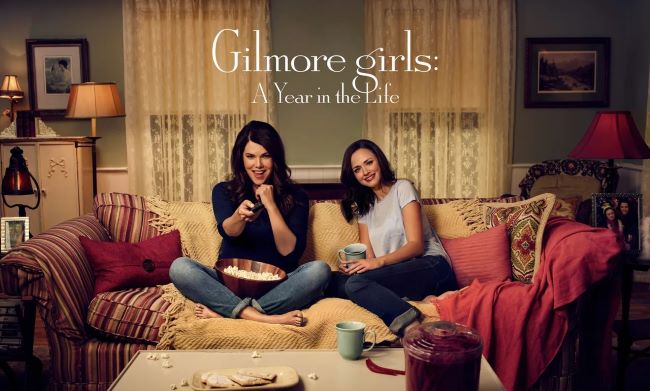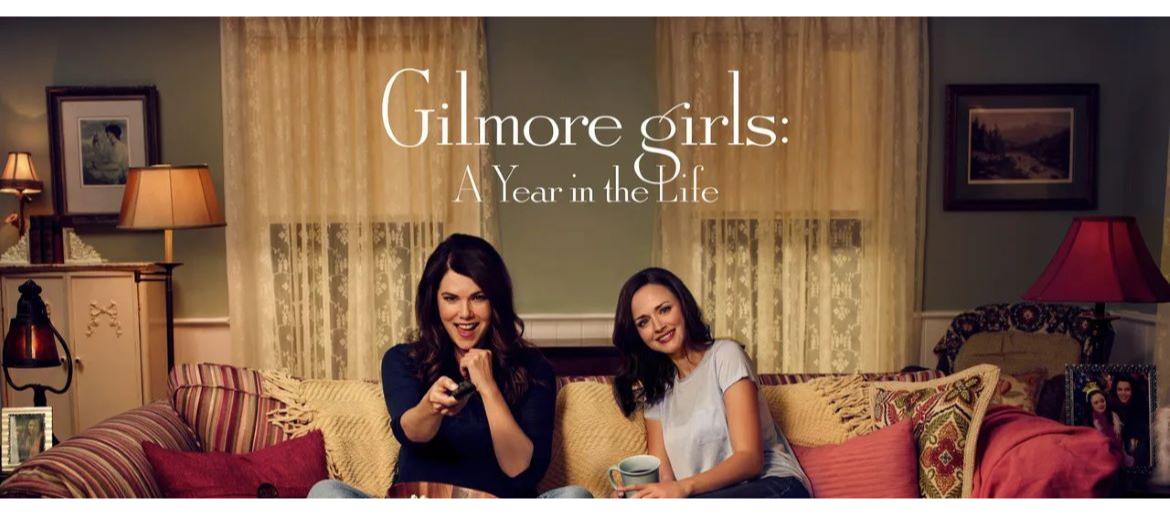
Gilmore Girls Font
The Gilmore Girls Font perfectly reflects the warmth, charm, and elegance of the beloved TV series. Featured in the show’s opening titles, its clean, stylish serif letterforms convey both approachability and sophistication, capturing the cozy, small-town atmosphere of Stars Hollow. Fonts with similar appeal include classic serifs and modern display typefaces that balance friendliness with elegance, and free alternatives are available to recreate the same inviting aesthetic for fan projects, posters, or social media designs.